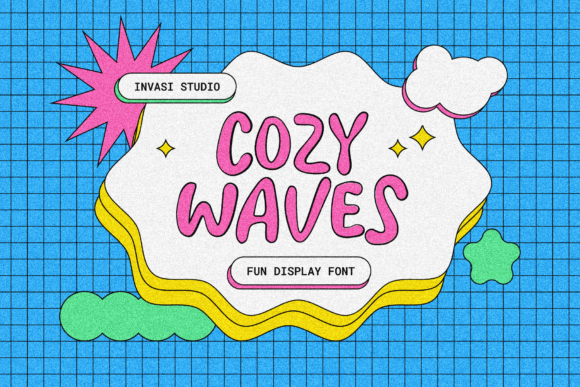
Find Your Creative Flow with the Cozy Waves Font
You know that moment when a spark of creativity strikes and you can’t wait to bring your idea to life? The feeling of excitement and possibility is exhilarating. For designers, this moment is what drives us to push the boundaries of our craft and create something truly special.
Enter the Cozy Waves Font, a whimsical and genuine display font that’s designed to take your creations to the next level. Whether you’re working on a branding project, a social media campaign, or a digital product, this font is sure to add a touch of magic to your design. Its unique blend of style and sophistication makes it a valuable addition to any designer’s toolkit, and its versatility means it can be used on a wide range of projects.
Cozy Waves Font Key Features
- Font Family: Cozy Waves Font is a unique, hand-drawn font designed to evoke a sense of warmth and comfort.
- Character Set: Includes a wide range of characters, including uppercase and lowercase letters, numbers, and punctuation marks.
- Unique Characteristics: Features a distressed, hand-painted look with subtle texture and imperfections, giving it a cozy and organic feel.
Designer Review: Cozy Waves Font
I recently had the chance to work with Cozy Waves Font, and I must say it’s a unique addition to any design project. Here’s my honest take on what works well and what could be improved.
- Relaxing Feel**: Cozy Waves Font has a calming effect that’s perfect for creating a soothing atmosphere in any design. It’s ideal for websites, magazines, or any project that needs a touch of serenity.
- Customizable**: This font offers various styles and weights, allowing you to customize it to fit your design needs. You can choose from a range of options to suit your project’s tone and personality.
- Legibility**: Despite its handwritten feel, Cozy Waves Font is remarkably legible, making it suitable for both print and digital designs.
- Limited Versatility**: While Cozy Waves Font excels in creating a relaxing atmosphere, it may not be the best choice for designs that require a bold, attention-grabbing look.
- Font Pairing Challenges**: Due to its unique, handwritten style, Cozy Waves Font may be tricky to pair with other fonts, which could limit its use in certain design projects.
Overall, Cozy Waves Font is a great addition to any designer’s toolkit. Its calming effect and customizability make it a valuable asset for creating soothing designs. While it may have some limitations, it’s an excellent choice for projects that require a relaxing atmosphere. With some creativity and experimentation, you can unlock the full potential of this font and create stunning designs that captivate your audience.
Tips for Getting the Most Out of Cozy Waves Font
Use Cozy Waves Font for creating a calming and soothing atmosphere in your designs. This font is perfect for branding, invitations, and social media graphics.
Experiment with different font sizes, colors, and combinations to create a unique look.
Cozy Waves Font is ideal for:
- Invitations and event graphics
- Social media graphics and posts
- Website headers and footers
Alternatives to Cozy Waves Font
Oswald
Oswald is a sans-serif font designed by Vernon Adams. It’s a great alternative for Cozy Waves when you need a clean and modern look. Oswald has a similar feel to Cozy Waves, but it’s more versatile and can be used for a wide range of applications, from headings to body text.
Similarity: 7/10, Versatility: 9/10
Lato is a sans-serif font designed by Łukasz Dziedzic. It’s a great choice when you need a font that’s both modern and elegant. Lato has a similar feel to Cozy Waves, but it’s more refined and can be used for a variety of applications, from logos to body text.
Q: What is the recommended font size and line height for optimal readability with the Cozy Waves Font?
For optimal readability, we recommend using a font size between 12pt and 18pt, and a line height of at least 1.2 times the font size. This will ensure that the text remains clear and easy to read, especially in digital applications.